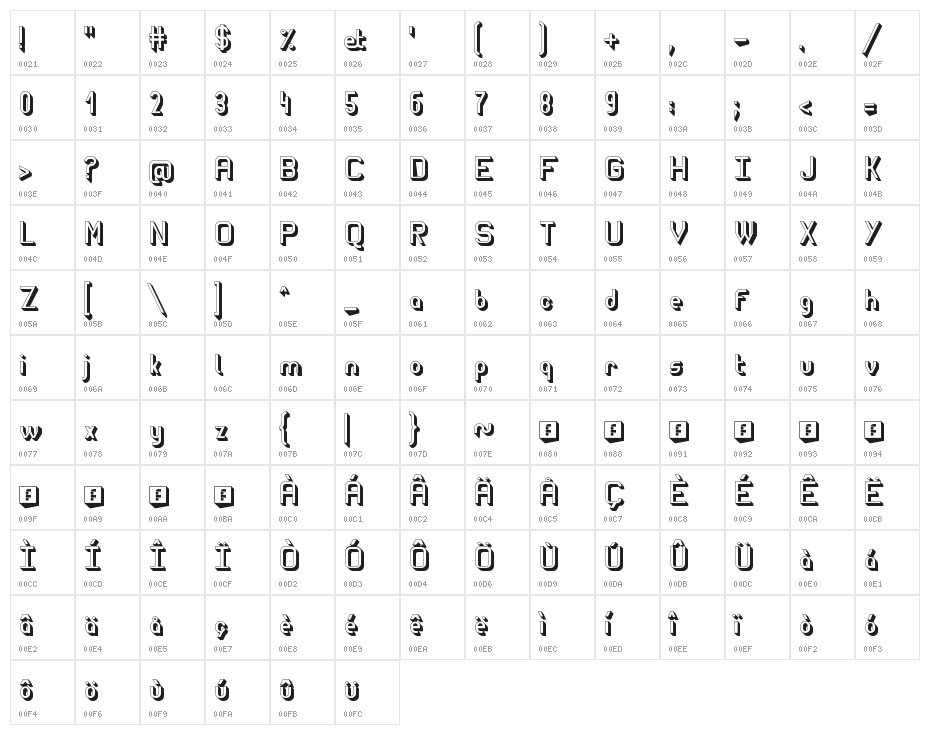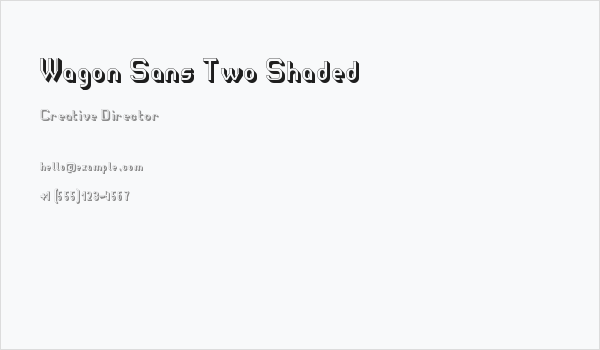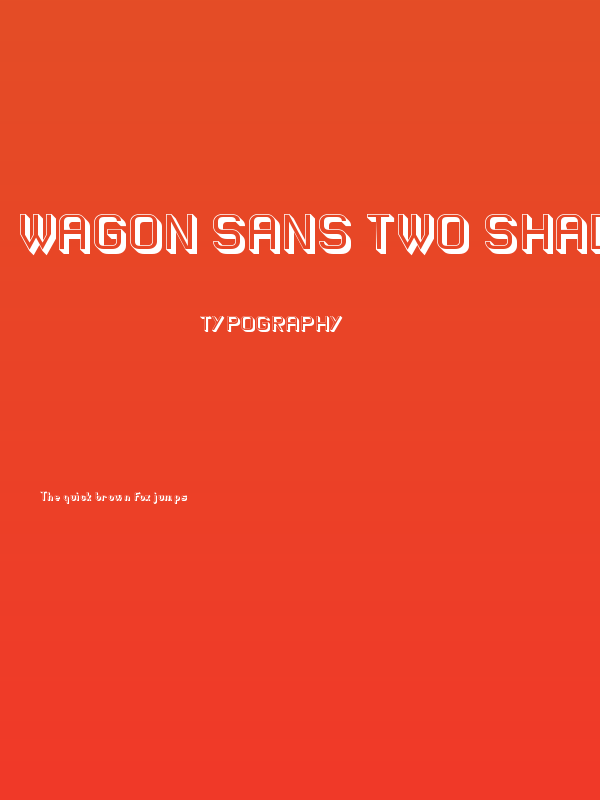
Wagon Sans Two Shaded Font
Wagon Sans Two Shaded Description
This font features a bold, three-dimensional appearance with a distinct shadow effect that gives it a unique, eye-catching look. The characters are sans-serif, with clean, geometric lines and a modern aesthetic. The shadow adds depth and a playful touch, making it suitable for designs that require a standout element. The uppercase and lowercase letters maintain a consistent style, with rounded edges and uniform thickness. Numbers and special characters are designed to match the overall theme, ensuring a cohesive look across all text elements.
| Proposed Projects | Ideal for posters, headlines, logos, and any design needing a bold, attention-grabbing font. |